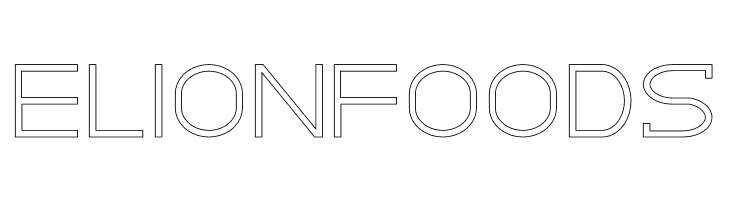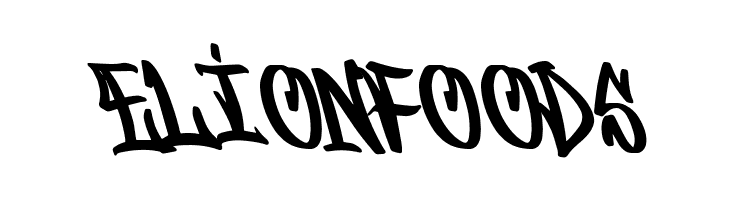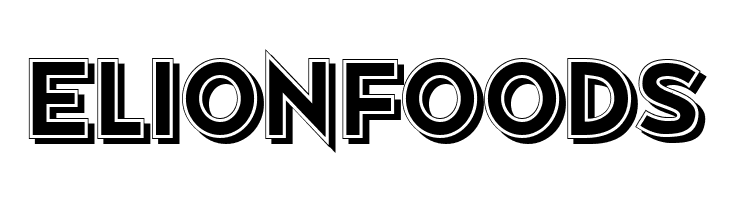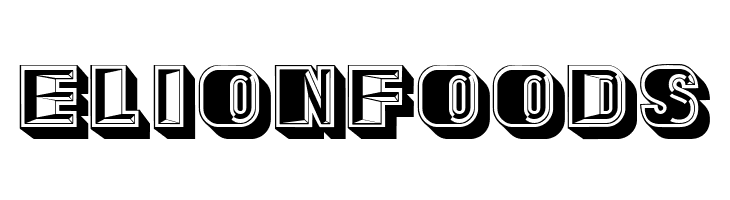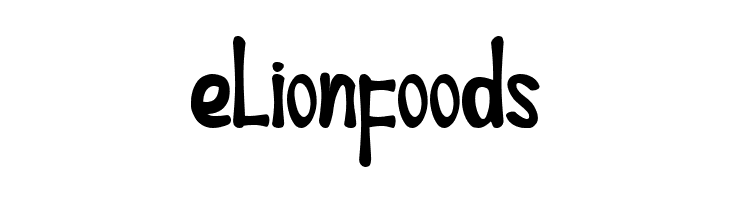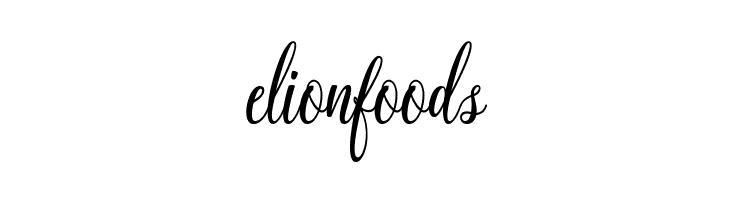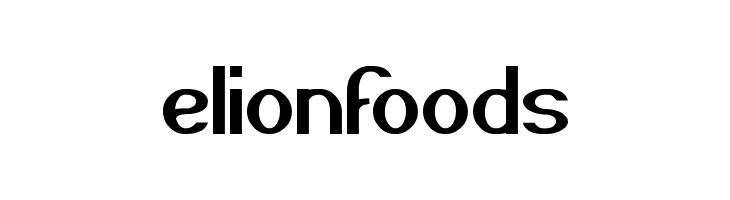
A bold, three-dimensional font with strong shadow effects and geometric style.
An elegant script font with flowing, ornate characters and intricate swashes.
A bold, graffiti-inspired font with angular, energetic characters.
A playful, hand-drawn font with bold, rounded strokes and an informal style.
A bold, decorative font with uppercase letters in circular borders, offering a vintage, industrial feel.
A bold, dramatic font with a three-dimensional effect and strong geometric shapes.
A bold, modern font with geometric structure and rounded edges.
A bold, rounded font with thick strokes and a modern aesthetic.
A bold, italic font with a modern, dynamic style and strong visual impact.
A dynamic, italicized font with smooth, fluid strokes and a modern aesthetic.